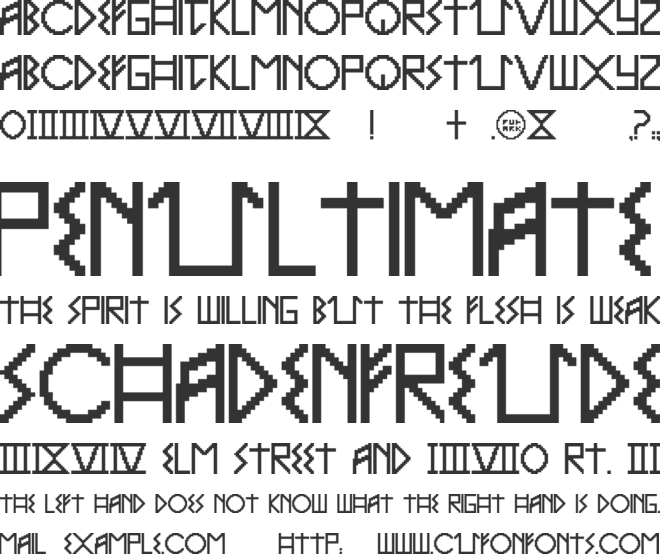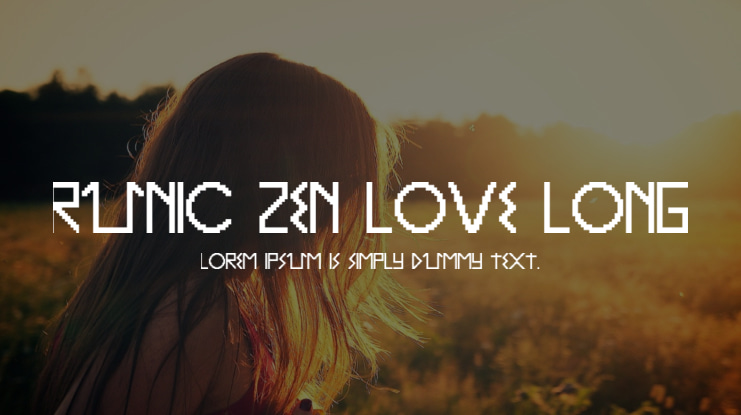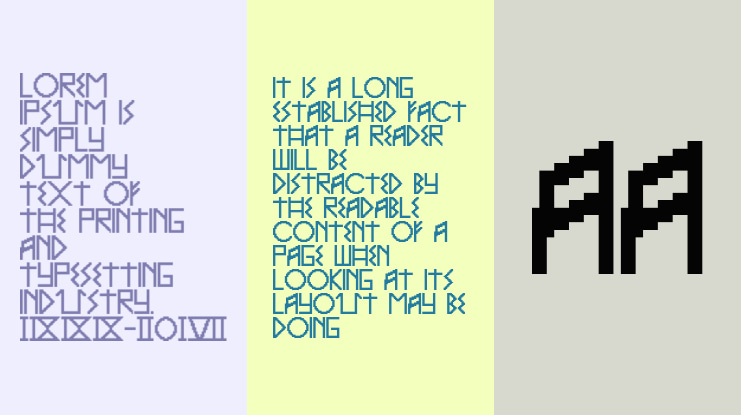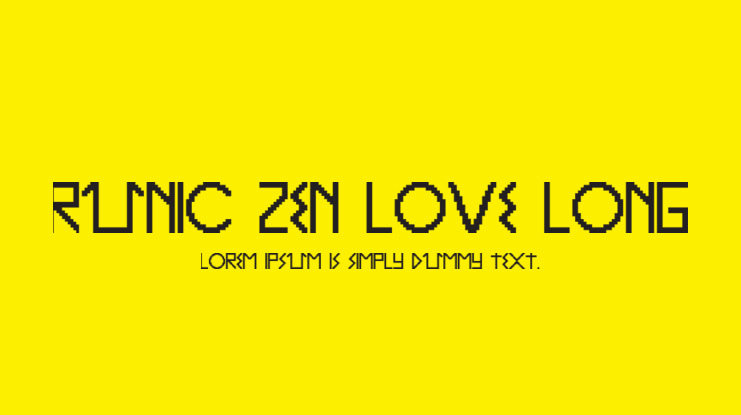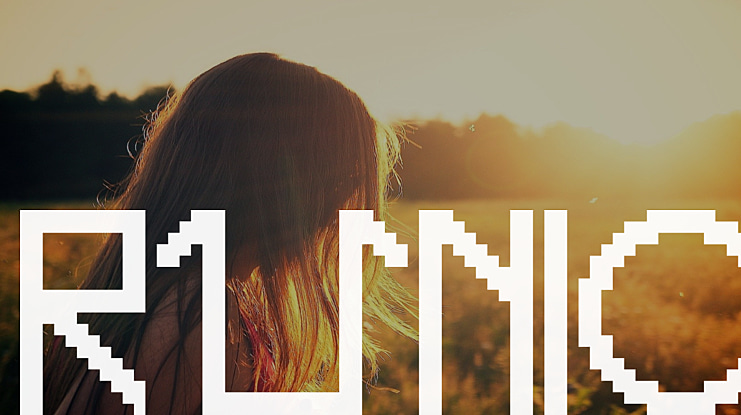
Runic Zen Love Long Font Family
This Is the Runic Font The Alphabet Letters Are What They Are. Numbers 1-9+* = Roman Numerals from 1-10 {,} = FUTHARK Logos |,~ = Circles <,>,^,\= Arrows